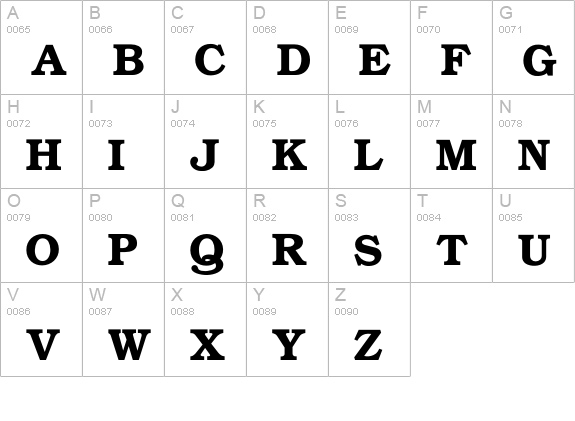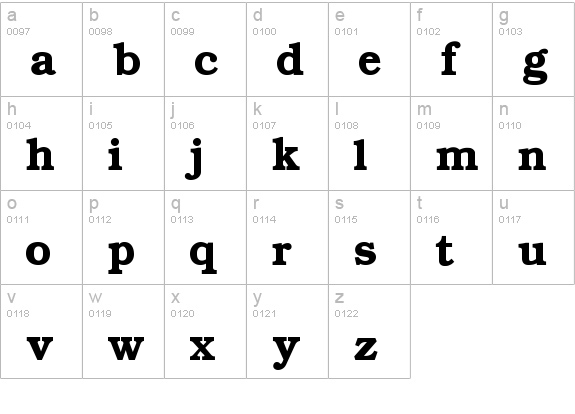
BookmanDemi Font Details
BookmanDemi is a classic serif font that exudes elegance and sophistication. Its timeless design makes it perfect for a wide range of projects, from formal invitations to professional documents. The font features clean lines and a sturdy, traditional appearance that commands attention. What sets BookmanDemi apart is its versatility - it can be used in both print and digital media with ease. Whether you're designing a book cover, creating a logo, or crafting a website, this font is sure to make a statement. The best part? BookmanDemi is available for free download at FontsMarket.com. Now you can add this beautiful font to your collection without breaking the bank. Don't miss out on the opportunity to enhance your designs with the timeless appeal of BookmanDemi.